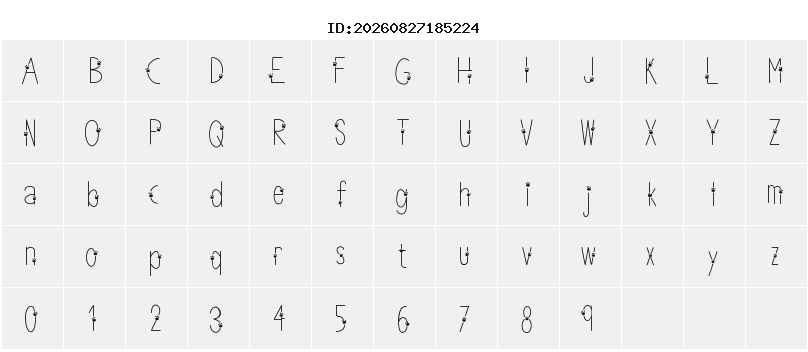
thinpaws Preview
• Font Name: thinpaws
• Full Font Name: thinpaws
• PostScript Name: thinpaws
• Character Count: 66
About thinpaws.ttf
thinpaws.ttf is a modern, elegant sans-serif font designed for ultimate readability and visual harmony. Perfect for branding, headlines, web design, and print materials.